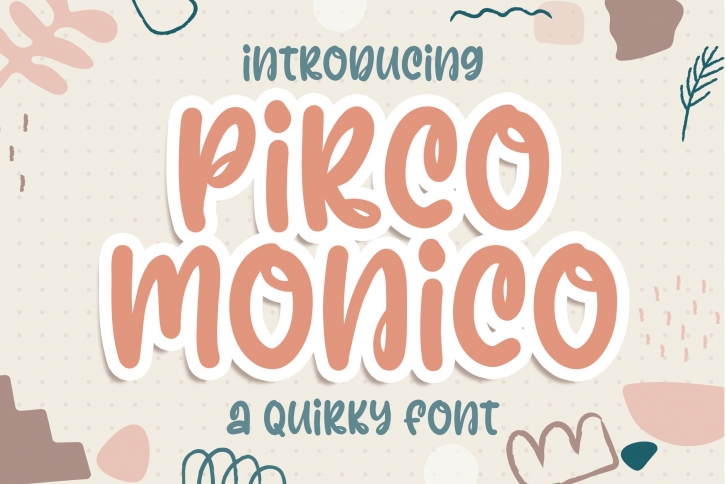
Pirco Monico is a quirky and fun display font. Whether you use it for cartoon related designs, children games or just any creation that requires a lovely touch, this font will be an amazing choice.